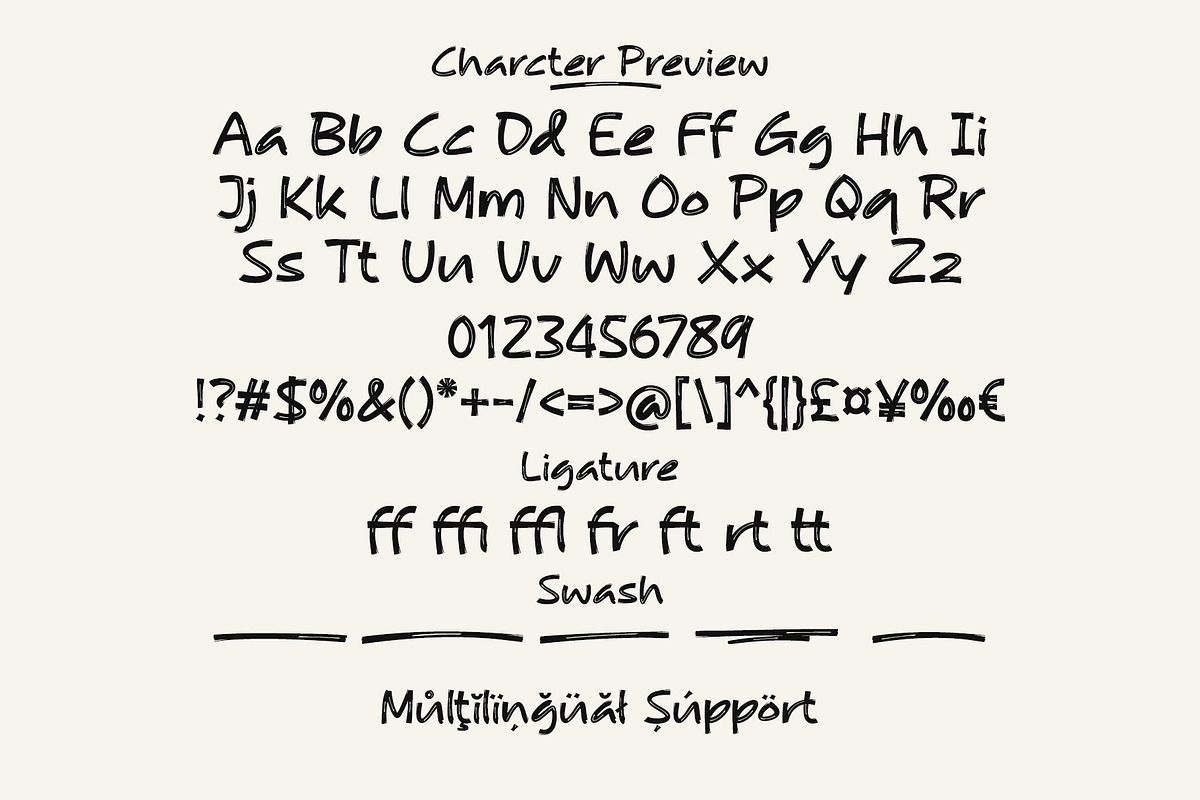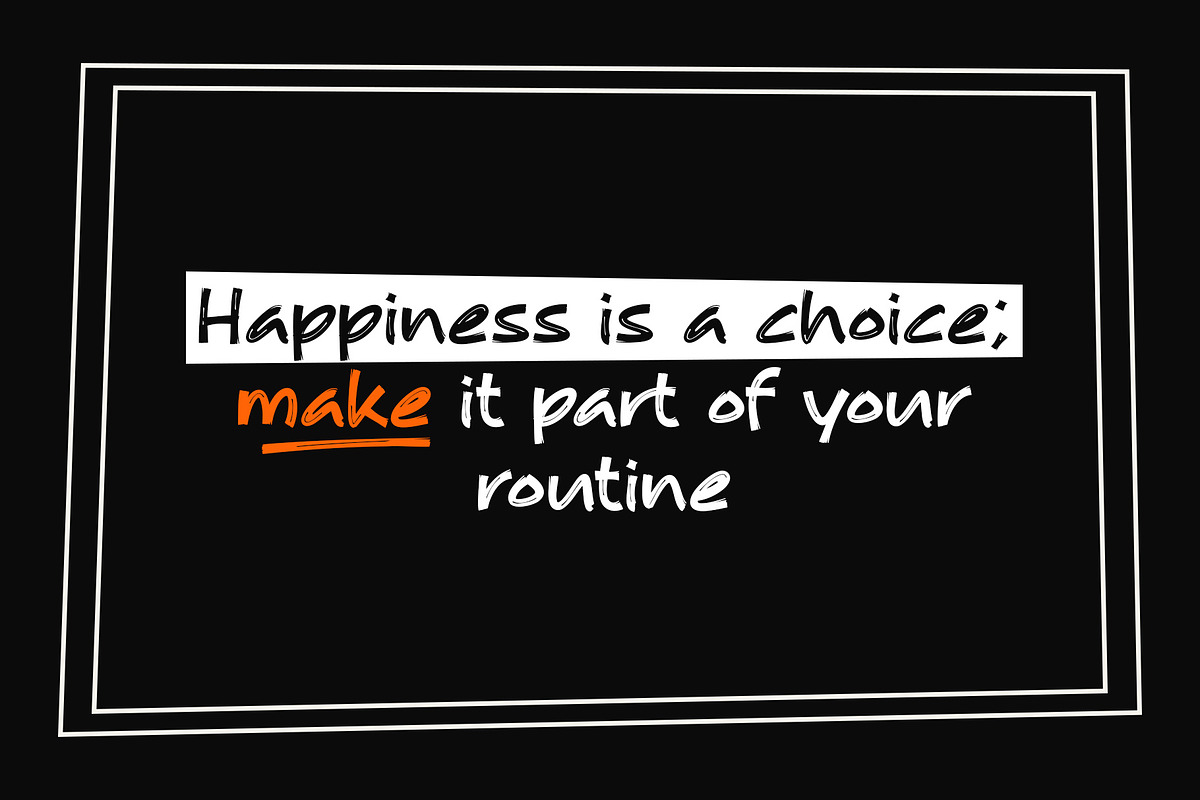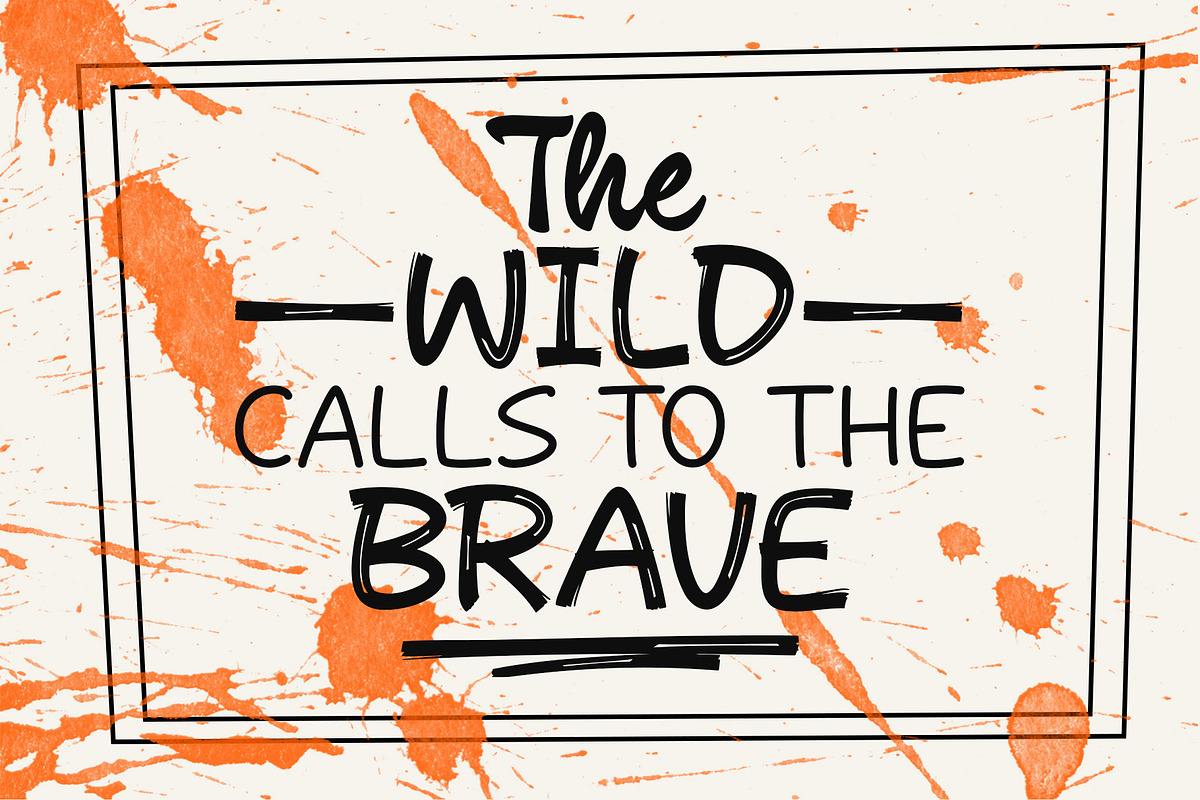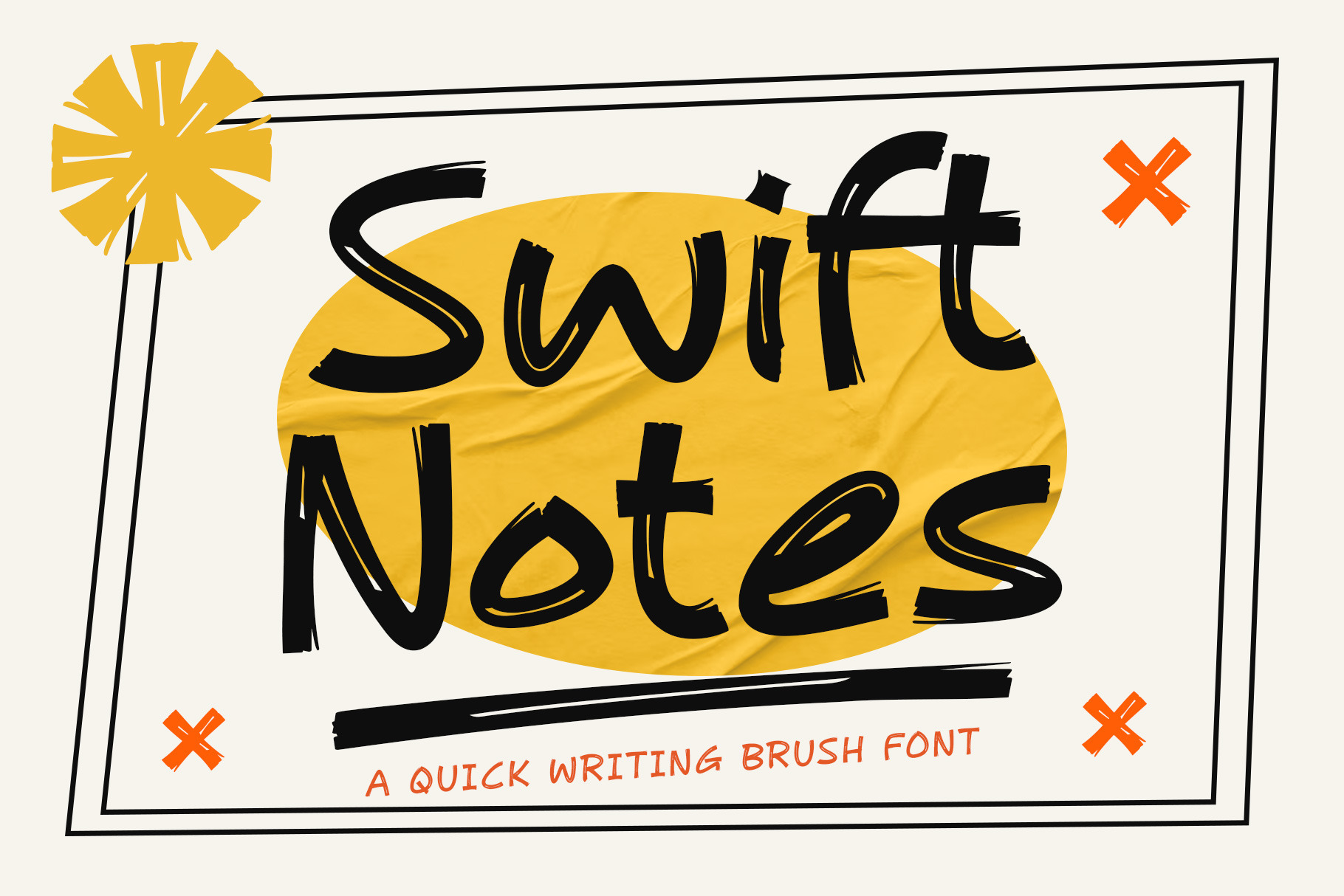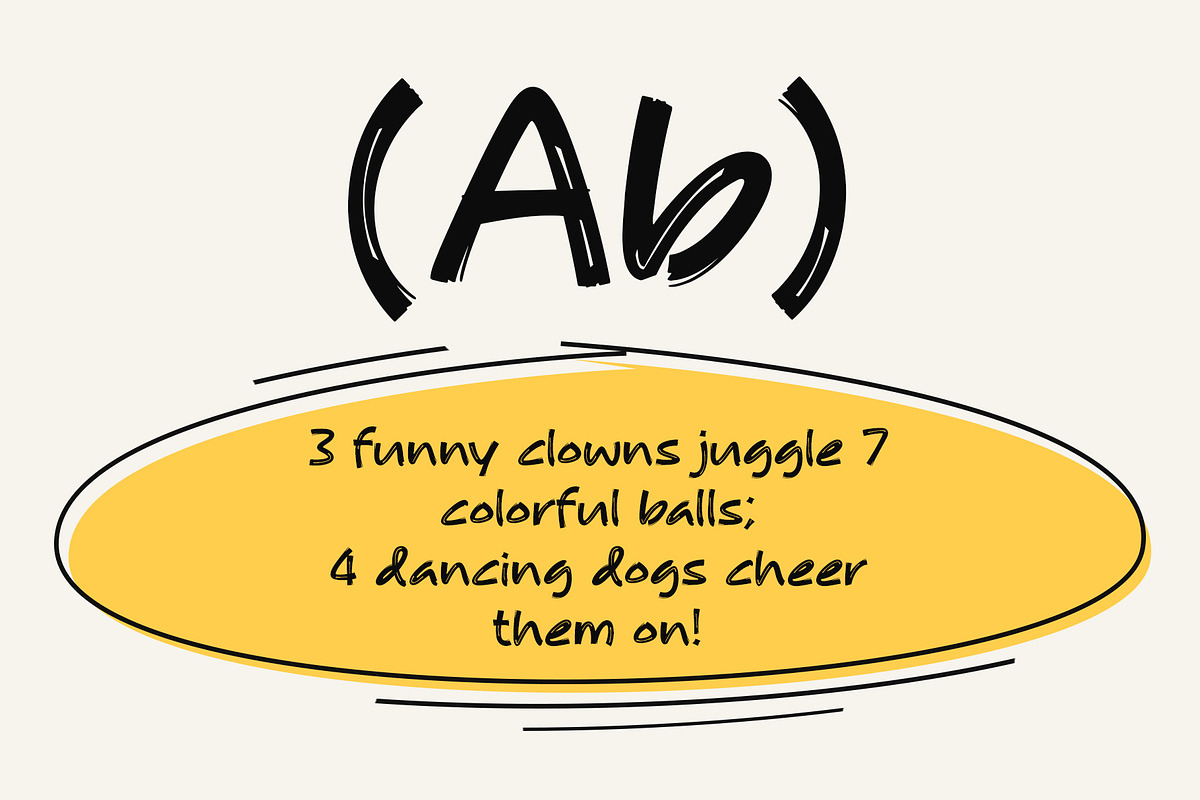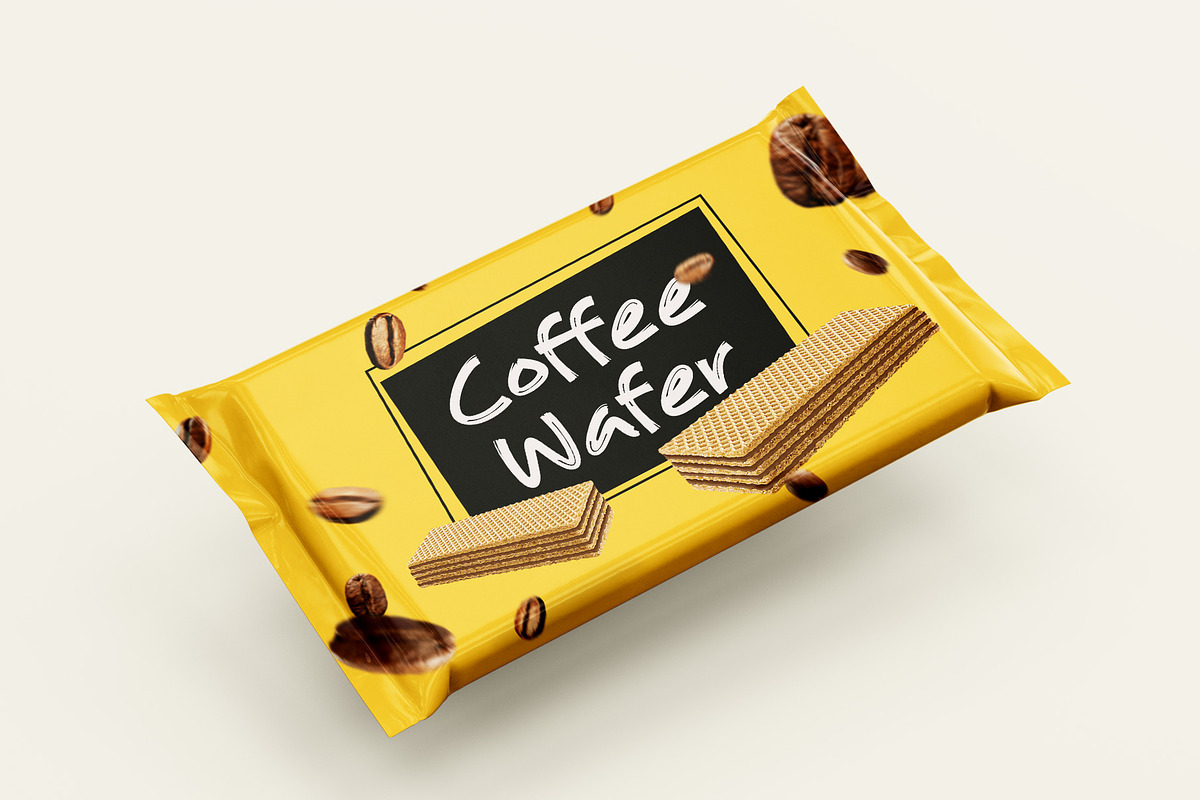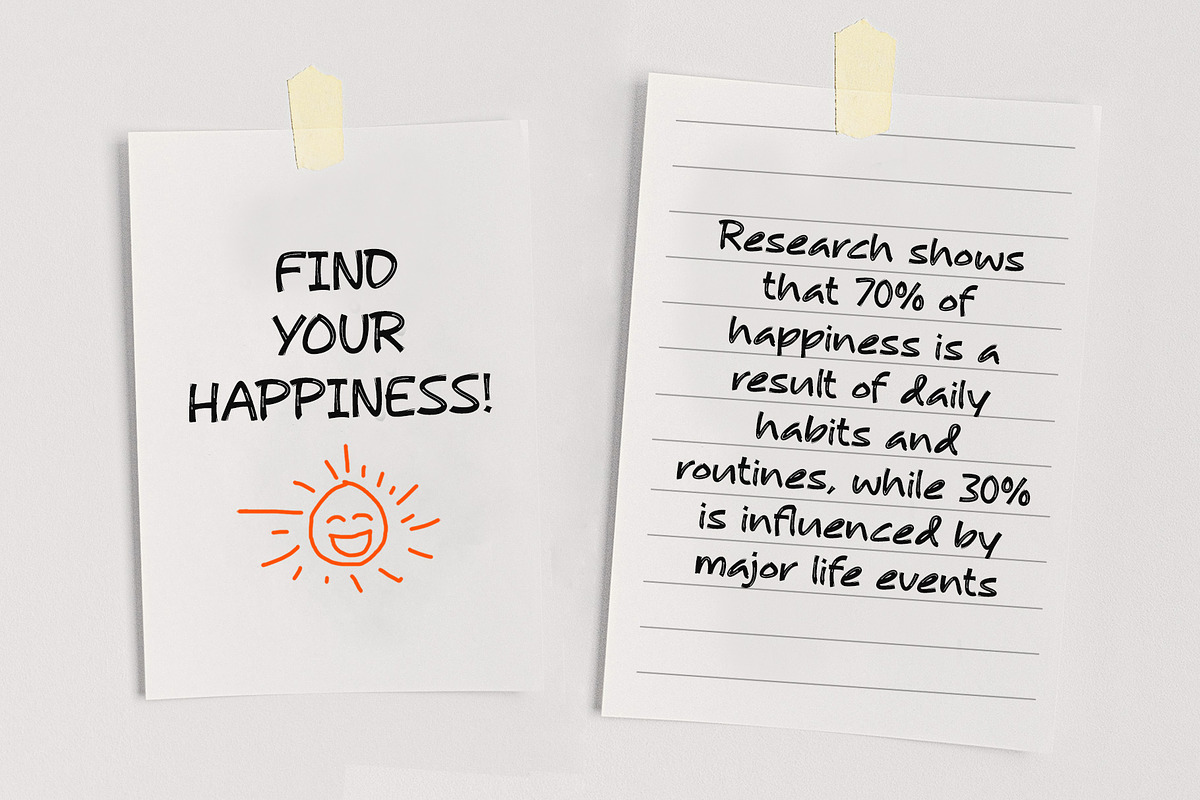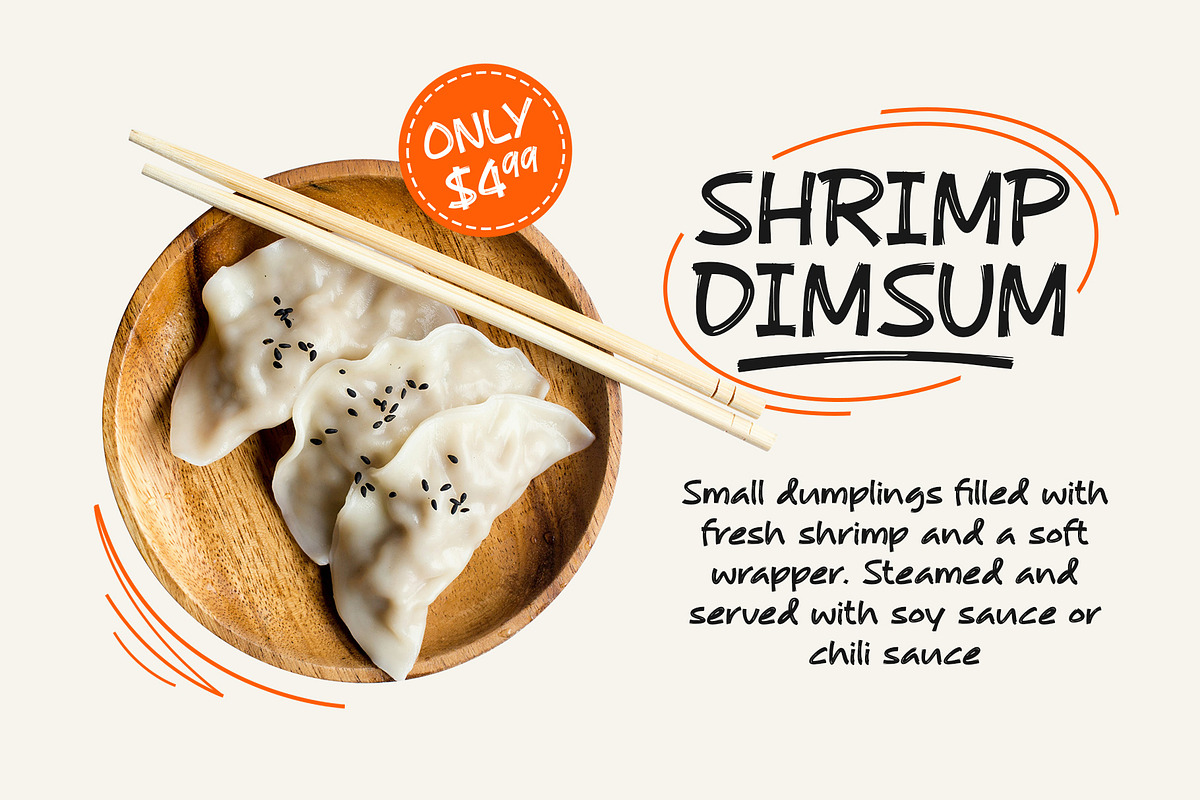
Swift Notes | Brush Font
Swift Notes is a quick and energetic brush font with a dynamic handwritten style. Perfect for creative designs that want to create a spontaneous and full-of-character feel in logos, branding, posters, product designs, quotes, and much more.
Quick access swash:
- Add number (1–5) + underscore + number (1–5) Example: 1_1, 2_2, 3_3, 4_4, 5_5